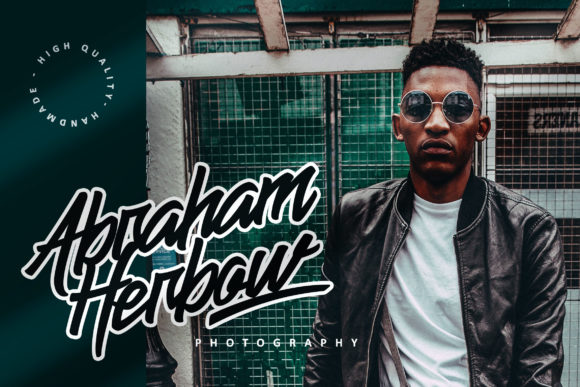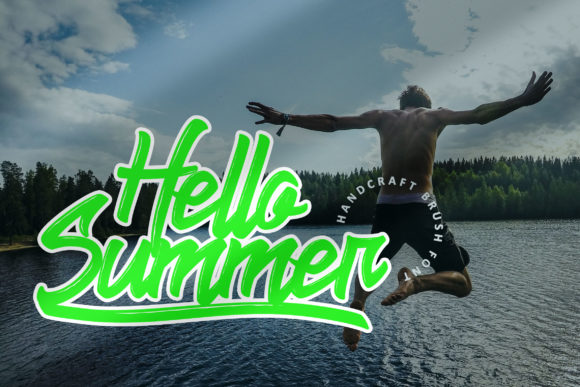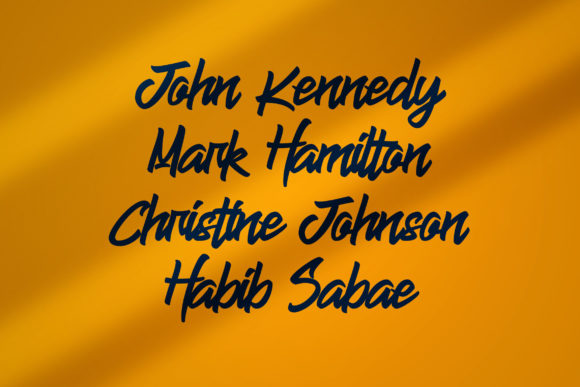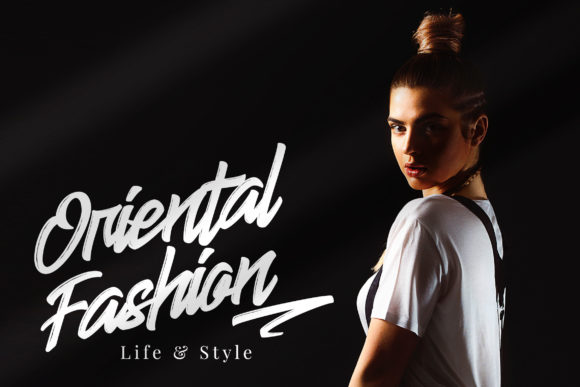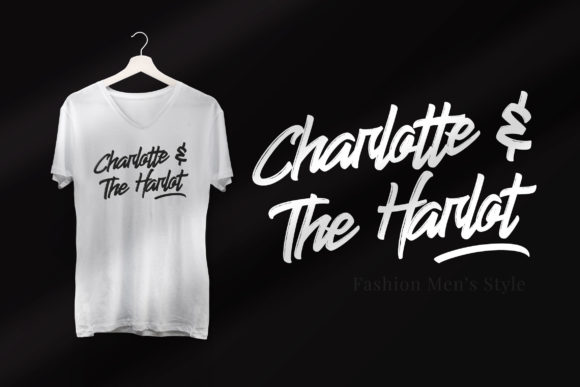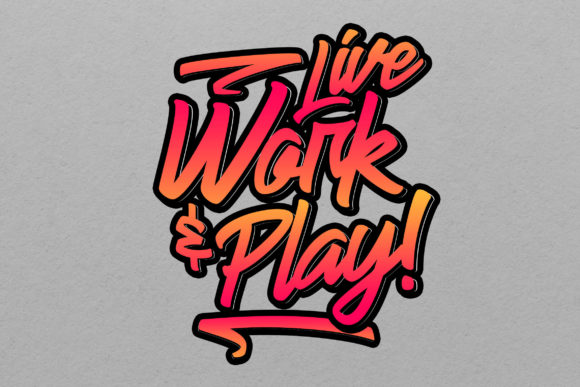
Introduction to Jump Streets Script Font
Have you ever been stuck on a design project, searching for the perfect font to bring your creative vision to life? I know I have. The right font can make all the difference in elevating a design from good to great. And that’s exactly what the Jump Streets Script Font is designed to do.
As a go-to design resource, Jump Streets Script Font offers a unique blend of style and sophistication, making it a high-quality choice for any creative project. Whether you’re working on a fashion brand, a magazine cover, or a social media campaign, this font is sure to impress. With its three styles – Regular, Rough, and Line – you’ll have plenty of options to experiment with and find the perfect fit for your design needs.
But what really sets Jump Streets Script Font apart is its versatility. From album covers to logo designs, this font is a valuable asset for any designer looking to add a touch of elegance and sophistication to their work. And the best part? It’s available for free download, making it an accessible design resource for designers of all levels.
Key Features of Jump Streets Script Font
- Unique, handwritten style suitable for creative projects, such as movie titles, logos, or posters.
- High-quality design resource with a transparent background, allowing for easy customization and composition.
- Font size: 24-48 points, ideal for use in titles, headings, and other display typography.
- Resolution: 300 DPI, suitable for use in print and digital applications, including movie posters, social media graphics, and website headers.
- Perfect for designers and artists working on creative projects, including film, television, and advertising.
- Characteristics: cursive, script, handwritten, elegant, stylish, and modern, making it an excellent choice for designers seeking a unique and eye-catching font.
Honest Review: Jump Streets Script Font
I recently had the chance to work with the Jump Streets Script Font on a creative project, and I must say it was a pleasant experience. The font has a lot to offer, especially when it comes to giving your designs a unique touch.
- High quality: The font is well-crafted and looks great even at larger sizes.
- Transparent background: This feature makes it easy to use the font on any background, which is a big plus.
- Great for creative projects: The font’s unique style makes it perfect for creative projects, such as wedding invitations or advertising materials.
What doesn’t work so well:
- ⚠️ Limited font weights: The font only comes in a few weights, which can limit its versatility.
- ⚠️ Not suitable for body text: Due to its cursive style, the font is not ideal for large blocks of text.
Overall, I was impressed with the Jump Streets Script Font. It’s a great design resource that can add a touch of elegance to your designs. While it may have some limitations, it’s definitely worth considering for your next creative project.